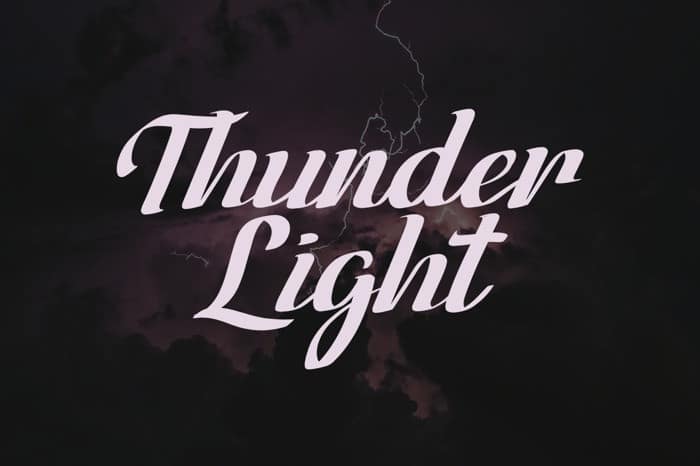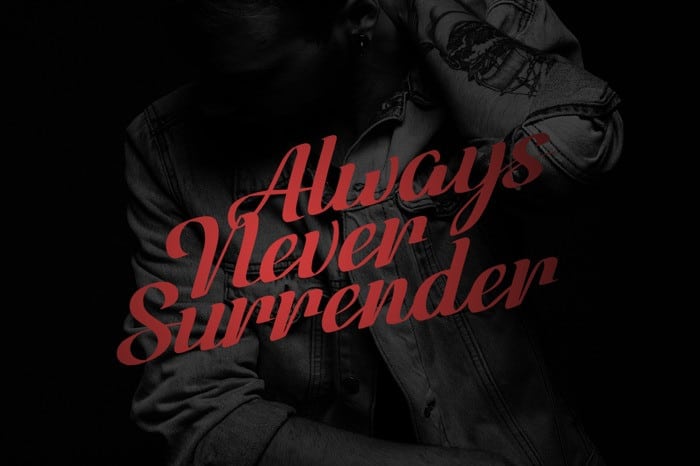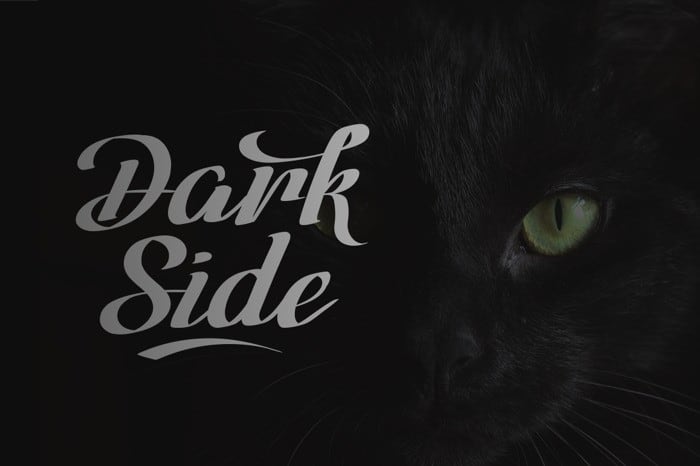
Venhille Quaver Script Font
Venhille Quaver Script Font is a script with original, clean and neat handwriting style, with a touch of personality on each curve.